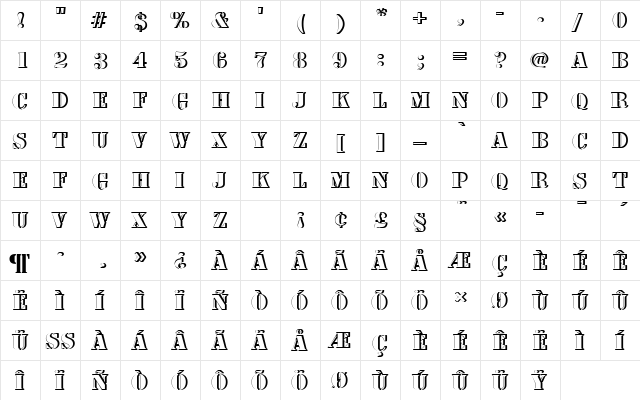
StencilDRe1 Regular
Design Context for StencilDRe1 Typeface
StencilDRe1 has the rough pragmatism of spray-painted stencil signage, adding a raw, street-level authenticity to designs.
Ideal for industrial branding, streetwear, military-adjacent aesthetics, and urban signage projects.
Pro Tip: Pair StencilDRe1 with raw, utilitarian design elements — exposed concrete textures, flat colour, and minimal ornamentation suit it well.